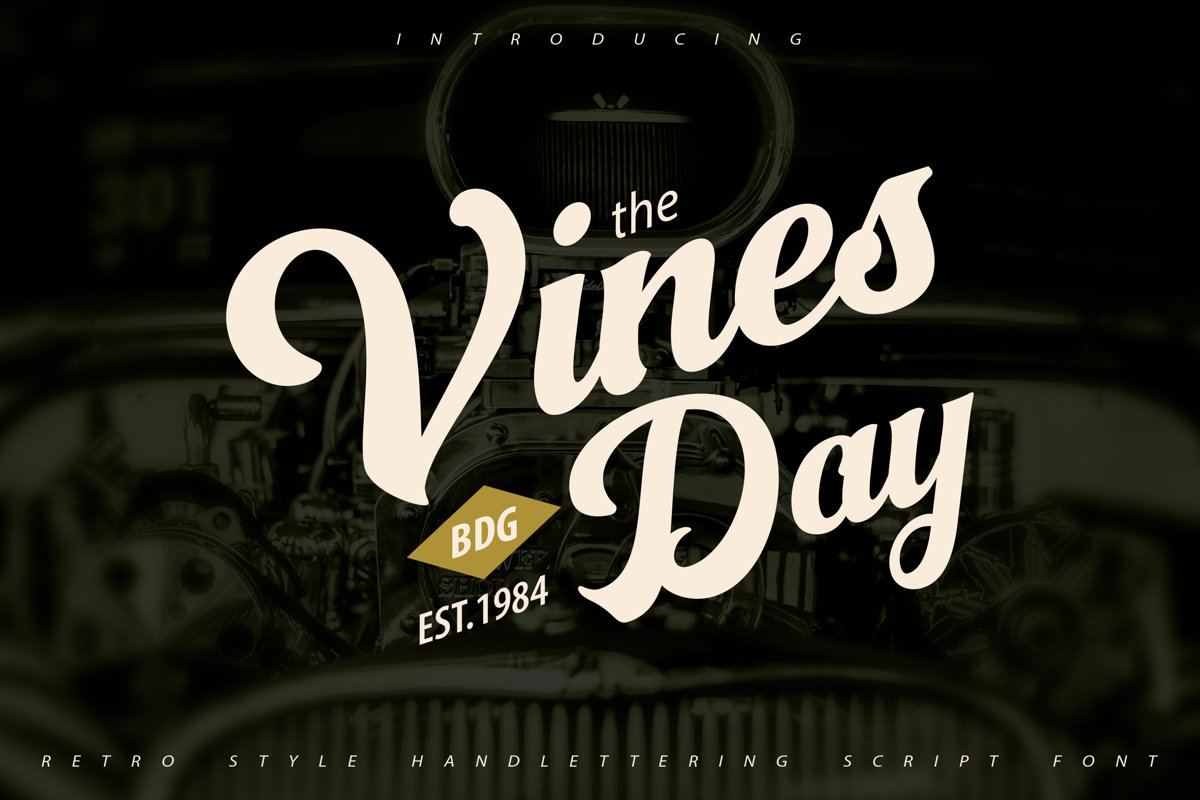
Vinesday | Retro Style Handlettering Script Font
VinesDay
**Vinesday | Retro Style Handlettering Script Font** with a calligraphy style, So beautiful on invitation like greeting cards, branding materials, business cards, quotes, posters, and more!
* Tons of glyphs
* Alternates and Ligatures
* Punctional
* Fonts include **Multilingual Support**